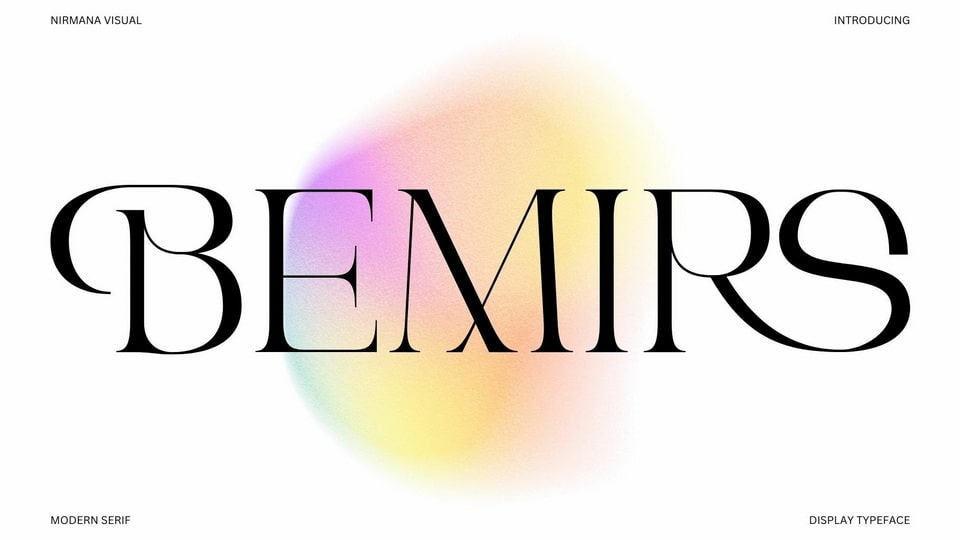
Download Bemirs font, a sophisticated display typeface inspired by Renaissance design era. Bemirs offers beautiful typographic harmony for a diversity of design projects, including logos and branding, social media posts, advertisements and product designs.